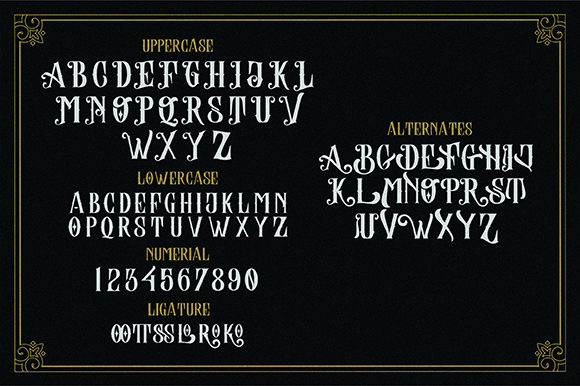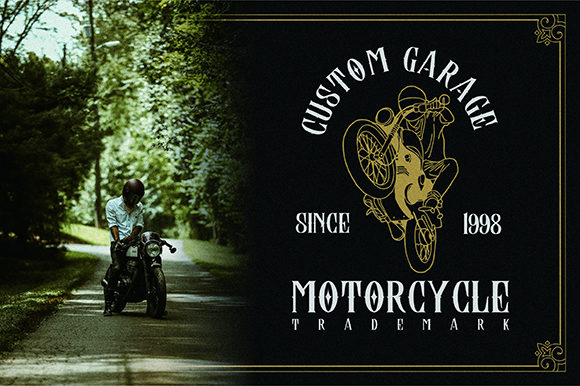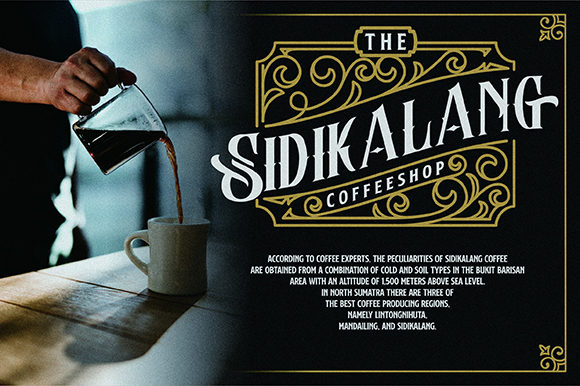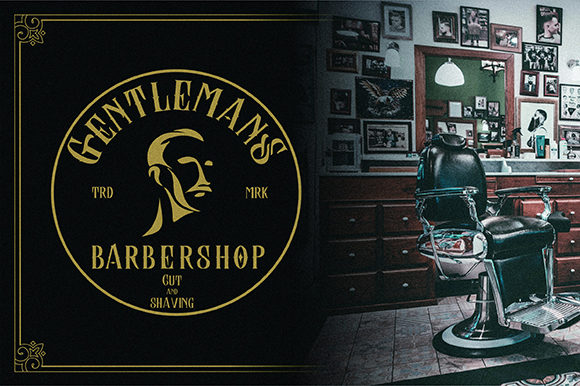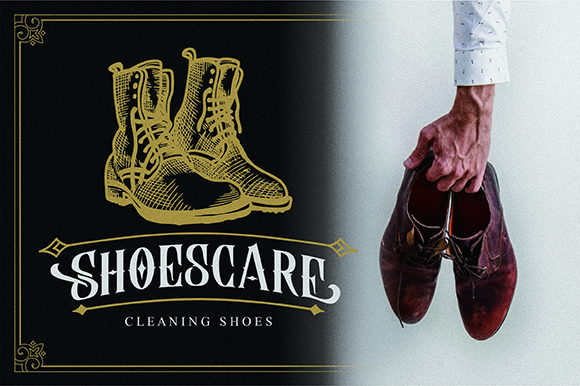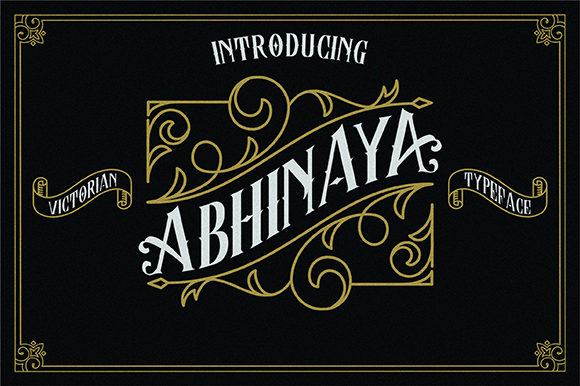
Introducing Abhinaya Font: The Perfect Choice for Vintage-Inspired Designs
Are you a designer or crafter looking for a font that can add a touch of classic elegance to your designs? Look no further than Abhinaya Font. This beautiful font is born from original handwriting and features a unique, handmade look that’s perfect for creating vintage-inspired designs. In this article, we’ll take a closer look at Abhinaya Font and explore its features, benefits, and uses.
The Story Behind Abhinaya Font
Abhinaya Font is a carefully crafted font that’s designed to evoke the feeling of a bygone era. Its classic, old-fashioned look is reminiscent of traditional handwriting, making it perfect for designers who want to add a touch of nostalgia to their designs. The font’s unique character is achieved through its subtle imperfections and irregularities, which give it a charming, handmade feel.
Key Features of Abhinaya Font
So, what makes Abhinaya Font so special? Here are some of its key features:
- Classic, old-fashioned look: Abhinaya Font has a timeless, vintage aesthetic that’s perfect for designers who want to create designs that evoke a sense of nostalgia.
- Handmade feel: The font’s subtle imperfections and irregularities give it a charming, handmade feel that’s perfect for adding a personal touch to your designs.
- Versatile: Abhinaya Font is suitable for a wide range of design applications, including branding materials, t-shirts, prints, business cards, logos, posters, and more.
- Easy to read: Despite its vintage aesthetic, Abhinaya Font is easy to read and understand, making it perfect for designs that require a clear and concise message.
Uses of Abhinaya Font
Abhinaya Font is a versatile font that can be used in a wide range of design applications. Here are some ideas to get you started:
- Branding materials: Use Abhinaya Font to create unique and memorable branding materials, such as logos, business cards, and letterheads.
- T-shirts and apparel: Add a vintage touch to your t-shirts and apparel designs with Abhinaya Font.
- Prints and posters: Use Abhinaya Font to create eye-catching prints and posters that evoke a sense of nostalgia.
- Photography and quotes: Add a touch of elegance to your photography and quotes with Abhinaya Font.
Benefits of Using Abhinaya Font
So, why should you choose Abhinaya Font for your designs? Here are some benefits of using this beautiful font:
- Unique and distinctive: Abhinaya Font is a unique and distinctive font that can help your designs stand out from the crowd.
- High-quality: Abhinaya Font is a high-quality font that’s designed to produce crisp and clear results.
- Vintage aesthetic: Abhinaya Font has a beautiful vintage aesthetic that’s perfect for designers who want to create designs that evoke a sense of nostalgia.
In conclusion, Abhinaya Font is a beautiful and versatile font that’s perfect for designers and crafters who want to add a touch of vintage elegance to their designs. With its classic, old-fashioned look and handmade feel, Abhinaya Font is sure to become a favorite among designers. Whether you’re creating branding materials, t-shirts, prints, or posters, Abhinaya Font is the perfect choice. So why not give it a try and see the difference it can make in your designs?